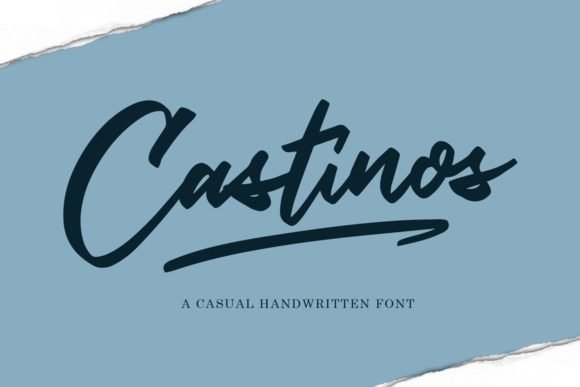
Introduction to Castinos Font
Castinos is a beautiful script with a charming curve and a very shaky bottom line.
Fall in love with its incredibly versatile style and use it to create gorgeous wedding invitations, beautiful stationary art, eye-catching social media posts, and much more This font is PUA encoded which means you can access all of the glyphs and swashes with ease.